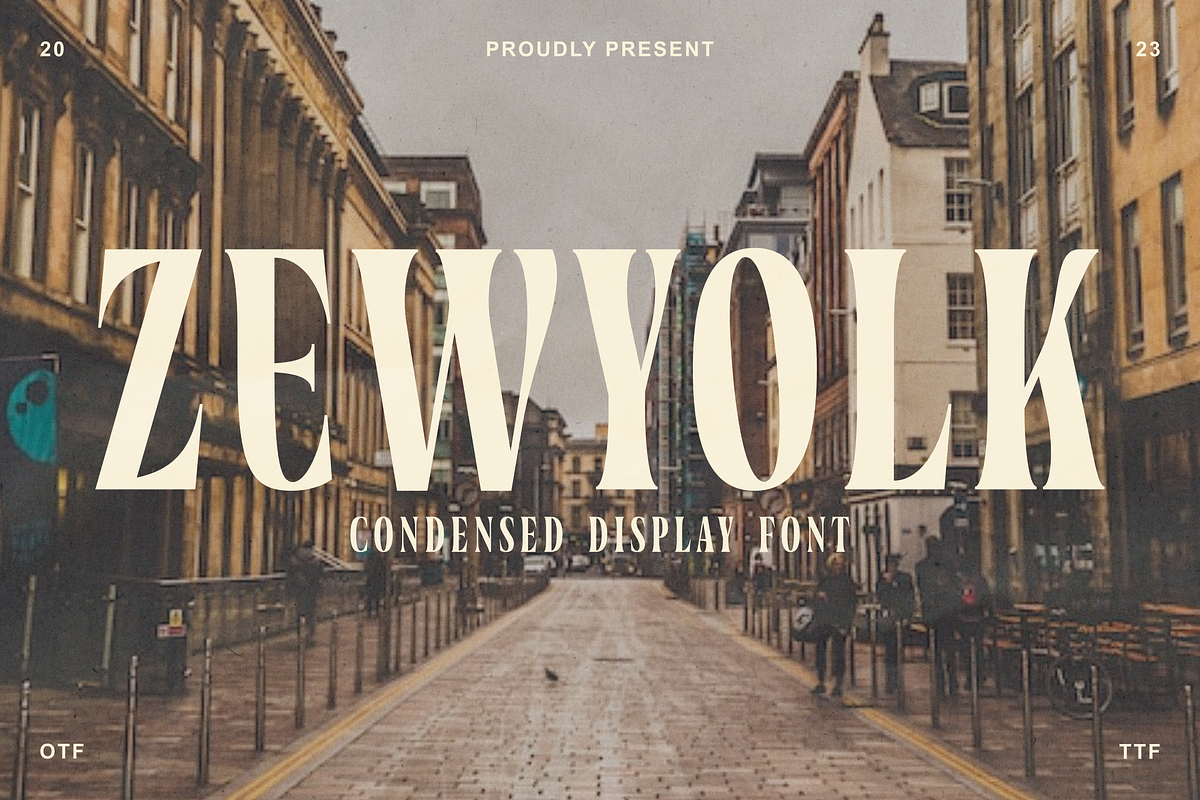
Transform your next design into a masterpiece of modern sophistication with Zewyolk – a high-impact, condensed display font engineered for those who embrace clean lines and powerful visual presence. This is not just a typeface; it’s a statement of minimalist ambition. With its tall, narrow silhouette and razor-sharp precision, Zewyolk cuts through visual clutter, commanding focus with quiet authority. From sleek branding to bold headlines, it delivers a look that is simultaneously modern, refined, and undeniably stylish. Whether you’re crafting a high-end product label or designing a luxury editorial spread, Zewyolk ensures your message is conveyed with the highest level of aesthetic polish.
Craftsmanship in Form: The Art of Condensed Minimalism
Zewyolk is born from a philosophy of intentional simplicity. Every curve, every stroke is meticulously sculpted to achieve maximum visual impact within minimal space. Its condensed structure is not a compromise – it’s a strategic advantage, optimizing content density without sacrificing clarity or elegance. The result is a font family that feels both contemporary and timeless, built to meet the demands of elite design projects.
- Tall & Narrow Design: The elongated, narrow characters create a vertical emphasis that draws the eye upwards, ideal for vertical layouts, narrow banners, and space-constrained designs.
- Minimalist Elegance: Clean edges, consistent stroke weights, and a lack of ornamental flourishes ensure Zewyolk remains versatile and professional, never overwhelming the overall composition.
- High-Contrast Refinement: While minimalist, the font features subtle refinements in stroke transitions and subtle internal structure, lending it a dynamic energy beneath its calm surface.
- Professional Aesthetic: Zewyolk exudes confidence and sophistication. It’s the go-to font for industries that value precision, innovation, and premium branding – from tech startups to fashion houses.
- High Visual Impact: Its tight letter spacing and vertical compression make it instantly recognizable, perfect for headlines that need to stand out in a crowded media landscape.
Applications That Demand Excellence: Where Zewyolk Shines
Zewyolk thrives in environments where clarity, power, and aesthetic refinement are non-negotiable.
- Brand Identity & Logo Design: Create logos that are instantly memorable and convey premium quality. Zewyolk is ideal for luxury brands, tech firms, and design agencies seeking a modern, confident visual identity.
- Headlines & Editorial Design: Elevate magazine covers, article titles, and digital news banners with a font that projects authority and sophistication.
- Product Packaging & Labeling: Apply Zewyolk to high-end product boxes, bottle labels, or cosmetics packaging to communicate elegance and exclusivity at a glance.
- Website UI & UX Headlines: Use Zewyolk for section headers, call-to-action banners, and hero sections to create a sleek, modern web aesthetic that engages users immediately.
- Event & Presentation Design: Make conference themes, presentation titles, and stage graphics visually striking with a font that commands attention and reflects a top-tier production value.
Master Your Look: Choosing the Right Zewyolk Style
Zewyolk’s power lies in its ability to adapt to your exact design needs. Select the style that best matches the tone and space of your project.
- Zewyolk Regular: The standard, balanced form. Offers a clean, professional look with a standard letter spacing. Ideal for standard headlines, corporate branding, and general display use.
- Zewyolk Condensed: The pinnacle of compact elegance. Maximize your visual impact in limited space, perfect for sidebars, social media graphics, short headlines, or any project where space is at a premium. It delivers an even bolder statement.
Experiment with both. Use Regular for a sleek, contained presence and Condensed for a more aggressive, urgent look. The choice of style becomes a powerful tool in your visual storytelling arsenal.